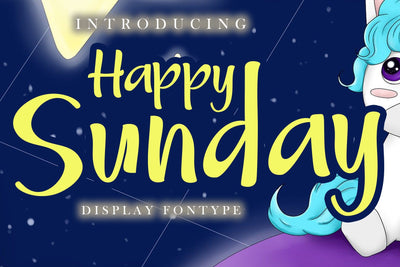
Happy Sunday Display Font
Happy Sunday is a cute display font. It’s perfect for advertising, book covers, branding, wedding invitations and much more!
Ligature\
Stylistic alternate for lowercase\
Basic Latin Language Support (AÀÁÂÃÄÅCÇDÐEÈÉÊËIÌÍÎÏÑOØÒÓÔÕÖUÙÜÚÛWYÝŸÆß )